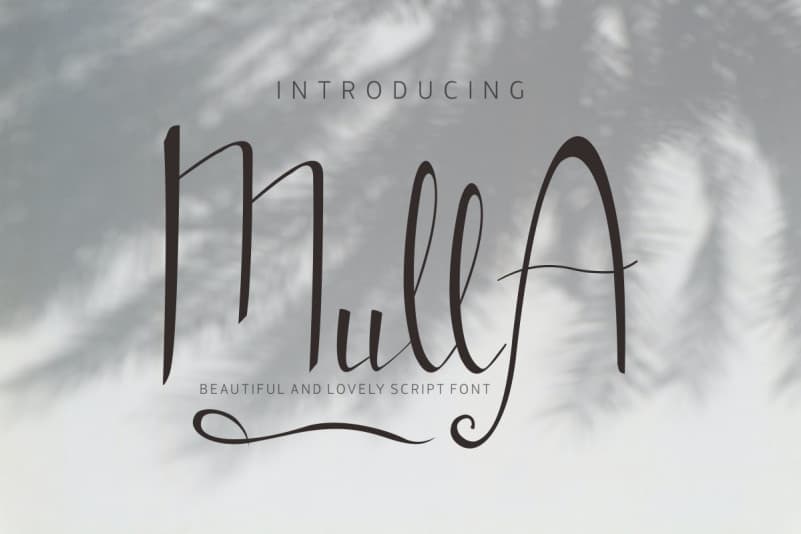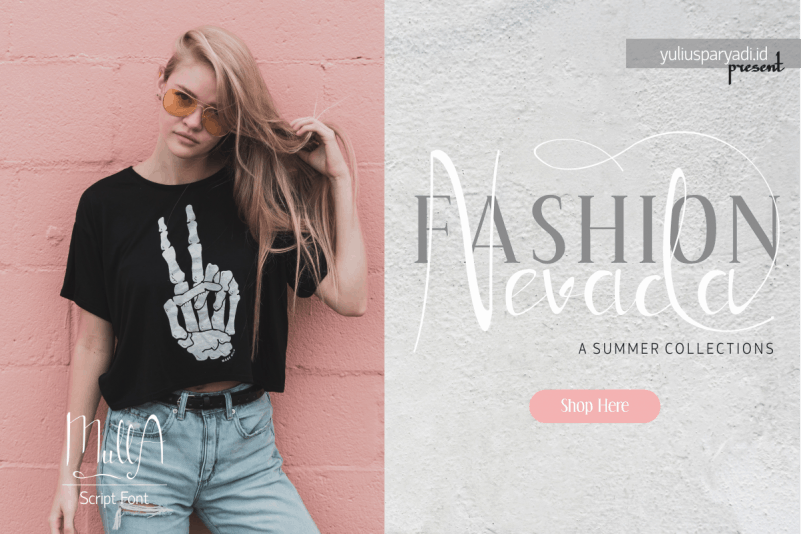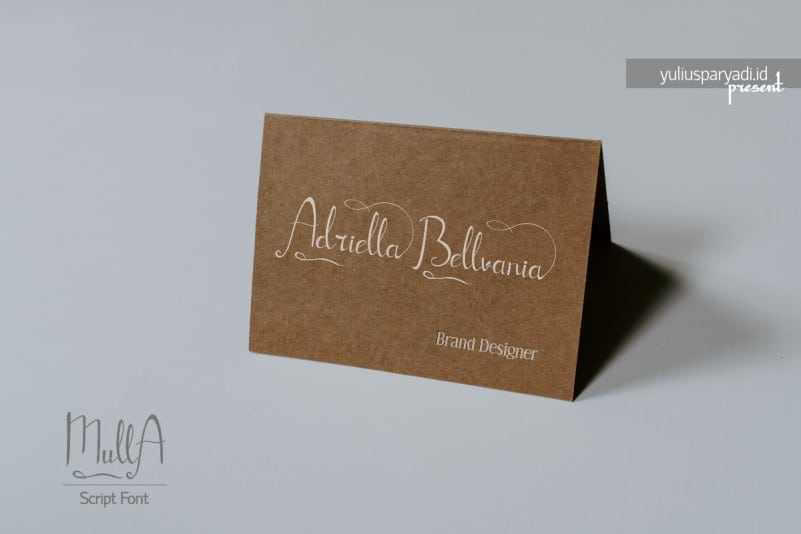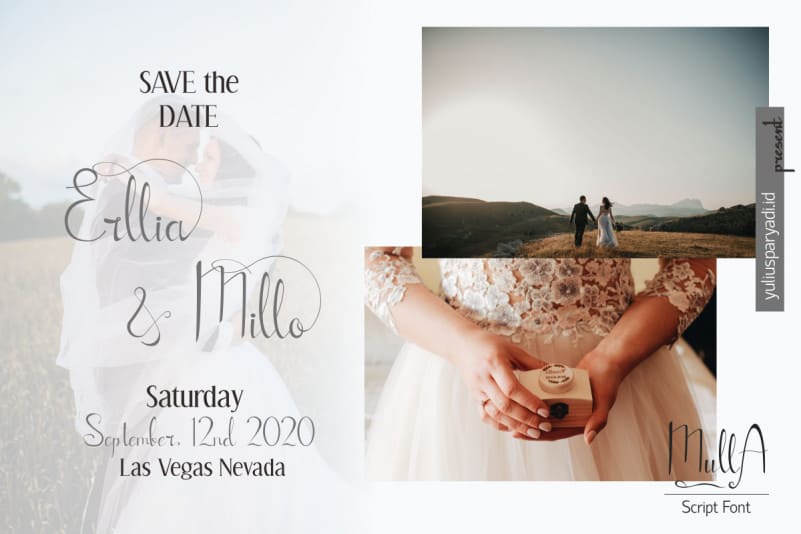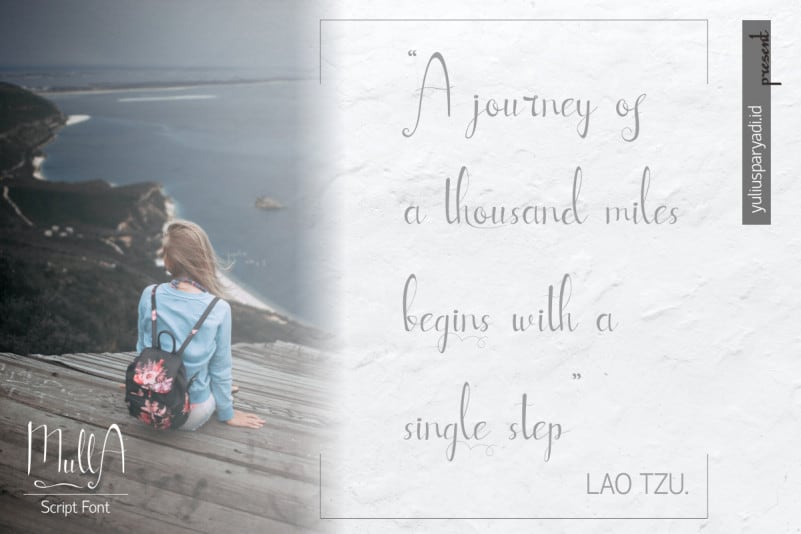
Mulla Handwritten Font
Mulla Handwritten Font is a strong font that exudes beauty. Smooth and beautiful character but with amazing high artistic taste.This font is readable, catchy, and easy to use.  This font is suitable for quotes, logo designs, magazines, business cards, and many other design projects.